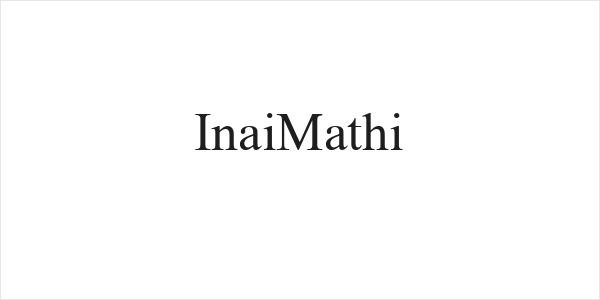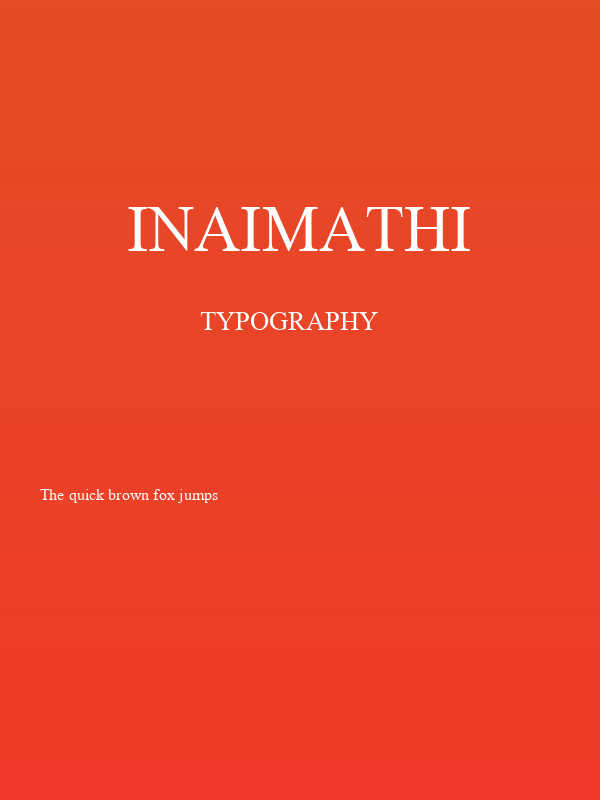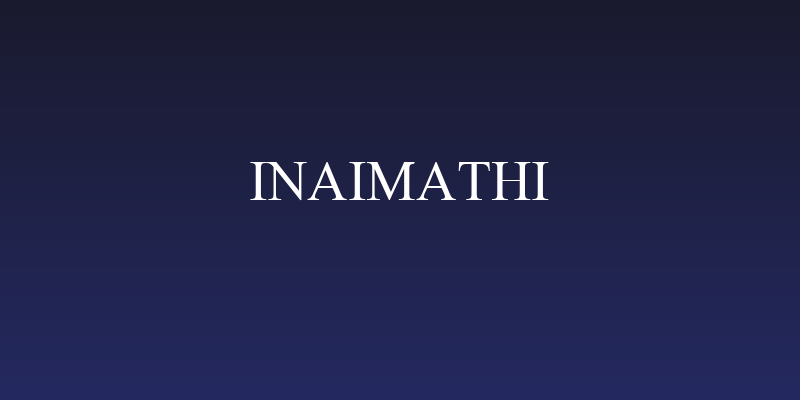
InaiMathi Font
InaiMathi Description
This font features a classic serif design with elegant and refined strokes. The serifs are pronounced, adding a touch of sophistication and tradition to the overall appearance. The uppercase letters are bold and commanding, while the lowercase letters maintain a balanced and harmonious flow. The numerals are clear and distinct, ensuring readability. Special characters are well-integrated, maintaining the font's cohesive style. The overall design is suitable for formal and professional applications, offering a timeless aesthetic.
| Overall Style | Classic |
| Use Case | Headlines, Body text, Logos |
| Proposed Projects | Ideal for use in editorial design, book covers, formal invitations, and branding materials that require a touch of elegance and tradition. |